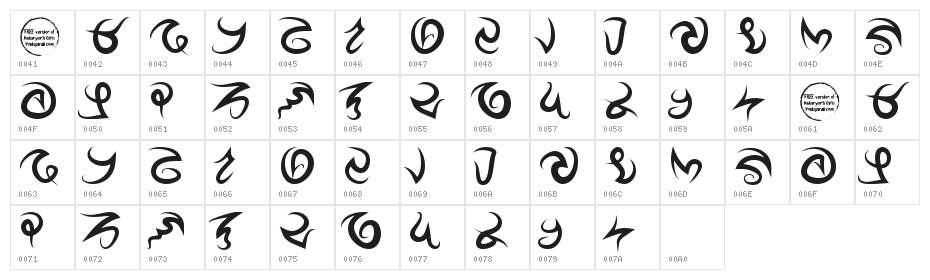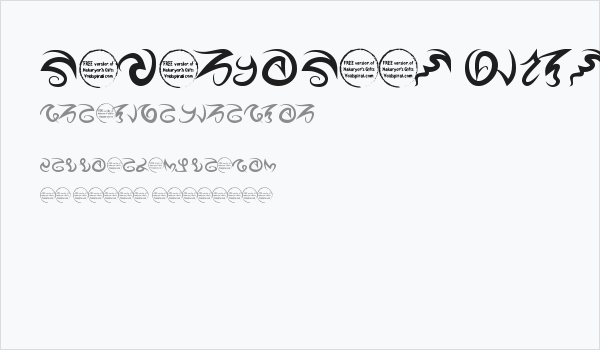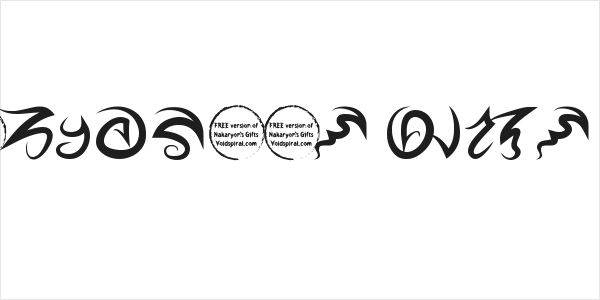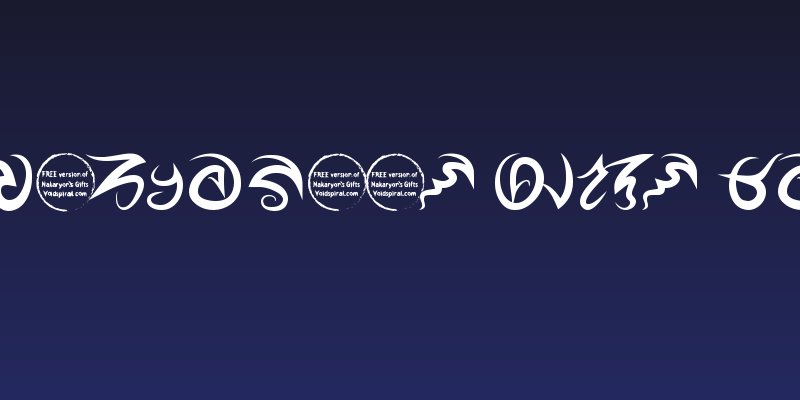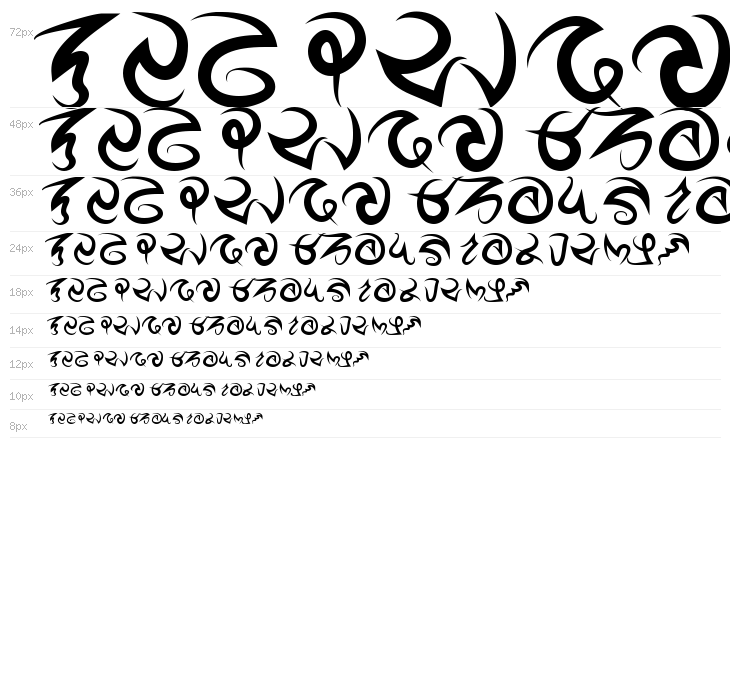
Nakaryon's Gifts Bold Font
Nakaryon's Gifts Bold Description
This font features a highly decorative and artistic style, characterized by its bold and flowing curves. Each character is uniquely crafted with intricate details and a sense of movement, creating a dynamic and eye-catching appearance. The strokes are thick and bold, providing a strong visual impact, while the curves and loops add a whimsical and playful touch. This font is ideal for creative projects that require a distinctive and artistic flair. Its unique design makes it suitable for use in branding, logos, and other visual media where a bold statement is needed.
| Use Case | Logos, Branding, Artistic projects |
| Proposed Projects | Ideal for branding, logos, artistic projects, and decorative purposes. |